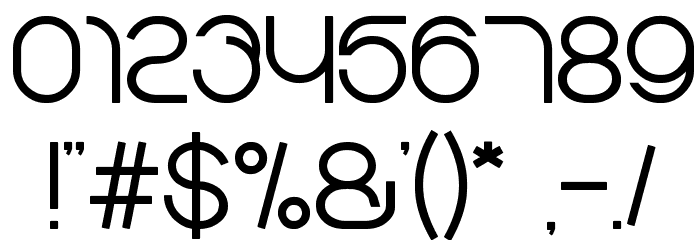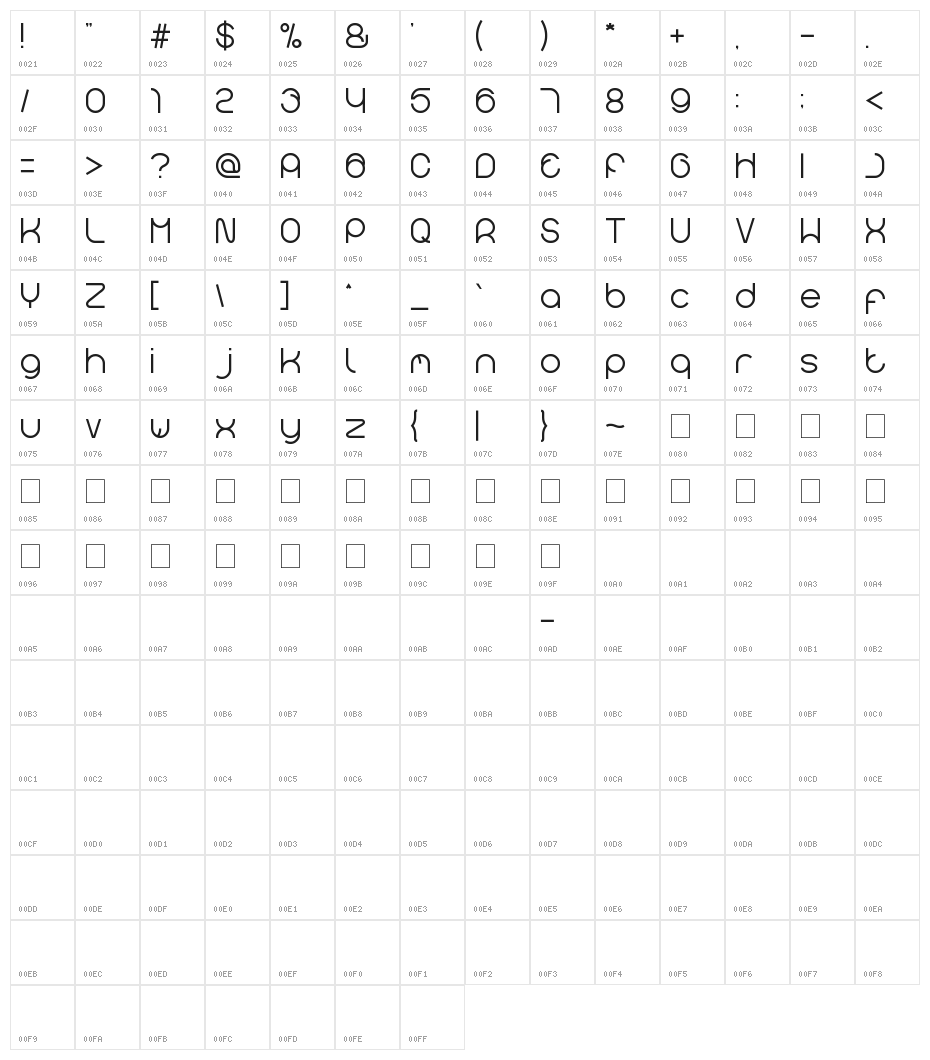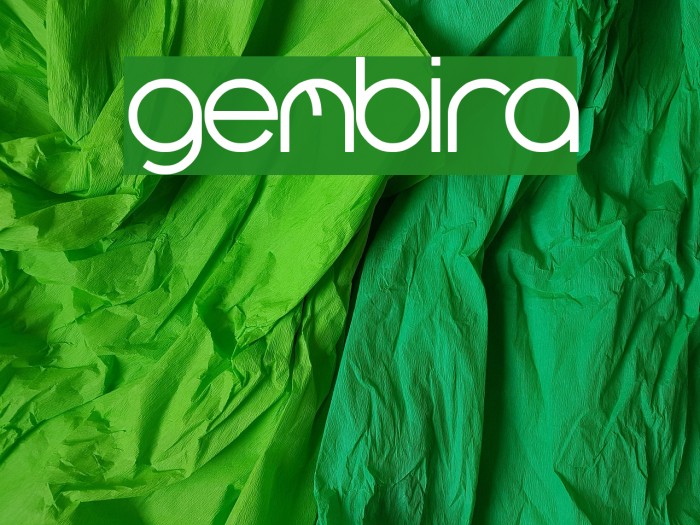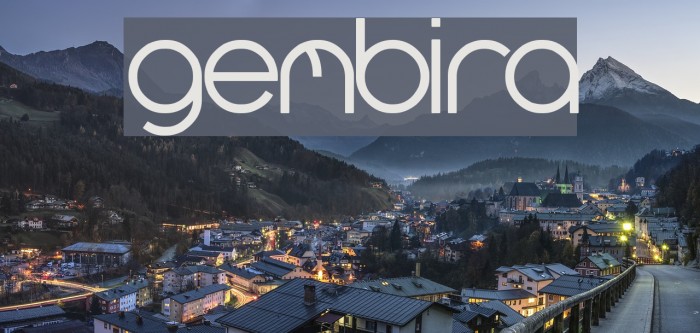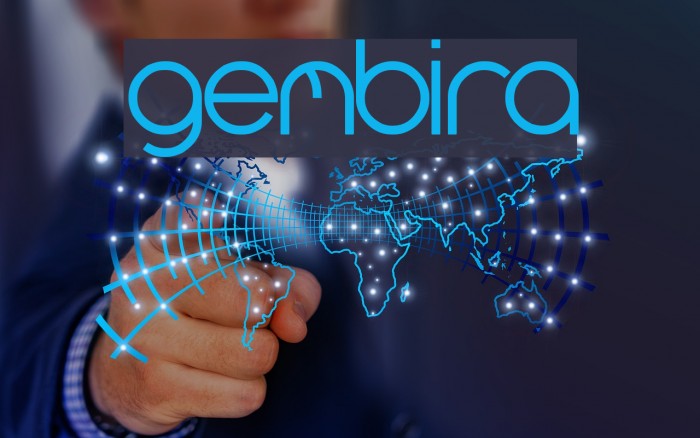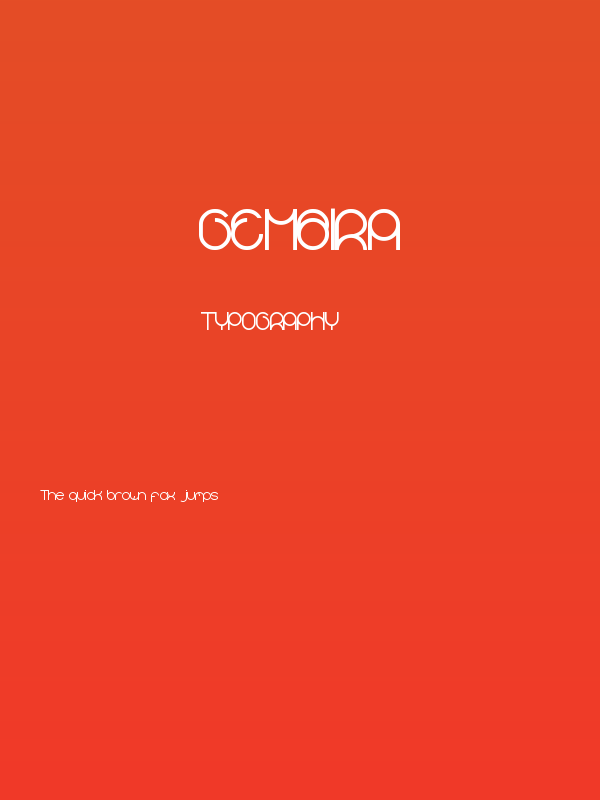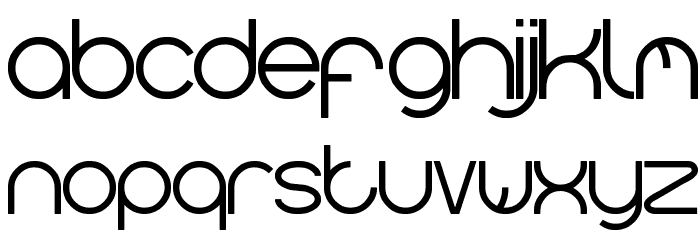
gembira Font
gembira Description
This font features a modern and geometric design, characterized by its circular and symmetrical letterforms. The uppercase and lowercase letters maintain a consistent style, with rounded edges and a uniform stroke width that gives it a clean and futuristic appearance. The numerals and special characters follow the same design principles, ensuring a cohesive look across all glyphs. The font's simplicity and clarity make it highly legible, while its unique style adds a touch of elegance and sophistication.
| Proposed Projects | Ideal for branding, logos, and headlines where a modern and clean aesthetic is desired. |